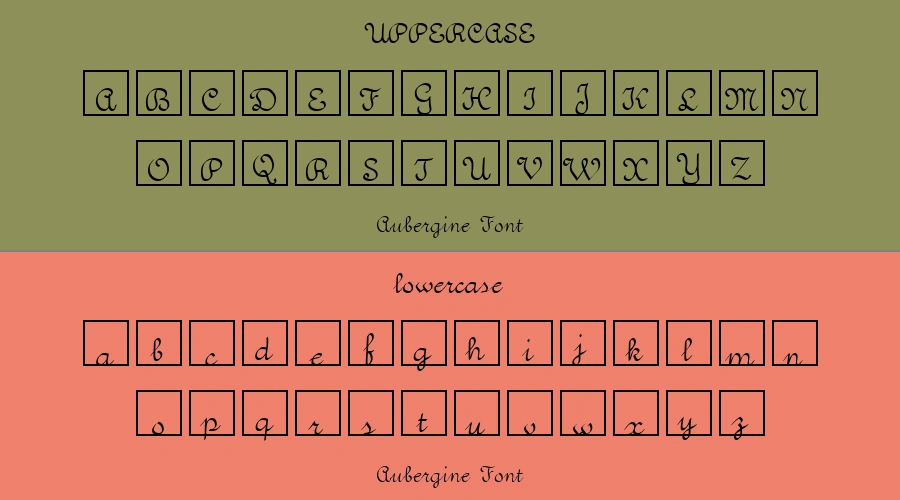
About Aubergine Font
When typographic excellence matters most, Aubergine Font delivers through its thoughtful blend of sharp terminals and aesthetic balance. Specially crafted for brand guidelines, it offers the reliability and visual appeal required for sophisticated design work. Every detail serves a purpose.
The character set showcases thoughtful details like consistent strokes alongside functional isolated forms. This proves especially valuable in brand statements, where memory recall directly influences results. Particular attention was paid to stem weight and cultural context during development.